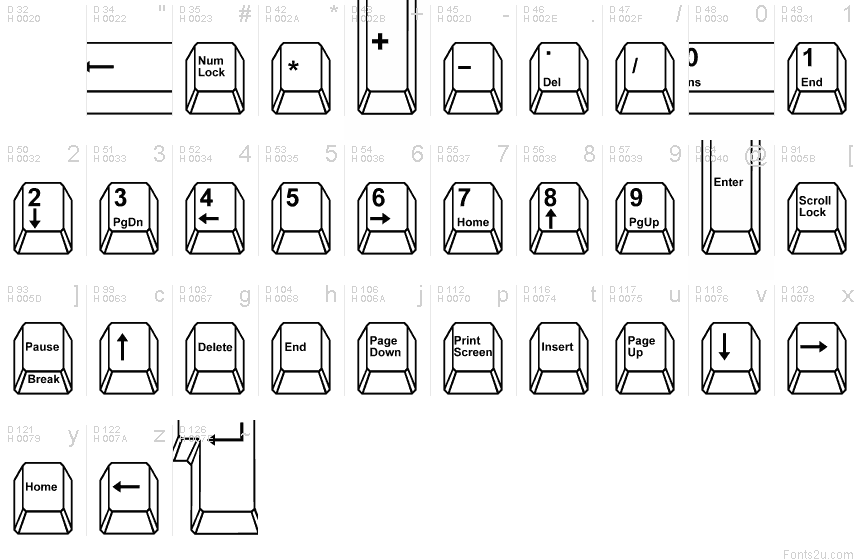
Key Extended by Simon Daykin of Byte-sized Computing is a free keyboard-key dingbat font built around outlined computer keycaps. Each symbol uses a squared top, clipped corners, and a flared base to suggest a raised plastic key. The inner signs are simple and sturdy.
The shared keyboard motif lets interface diagrams and software manuals use the symbols as both labels and small illustrations. Gaming graphics, tech event posters, and computer-themed merchandise can draw on the same familiar hardware shapes.